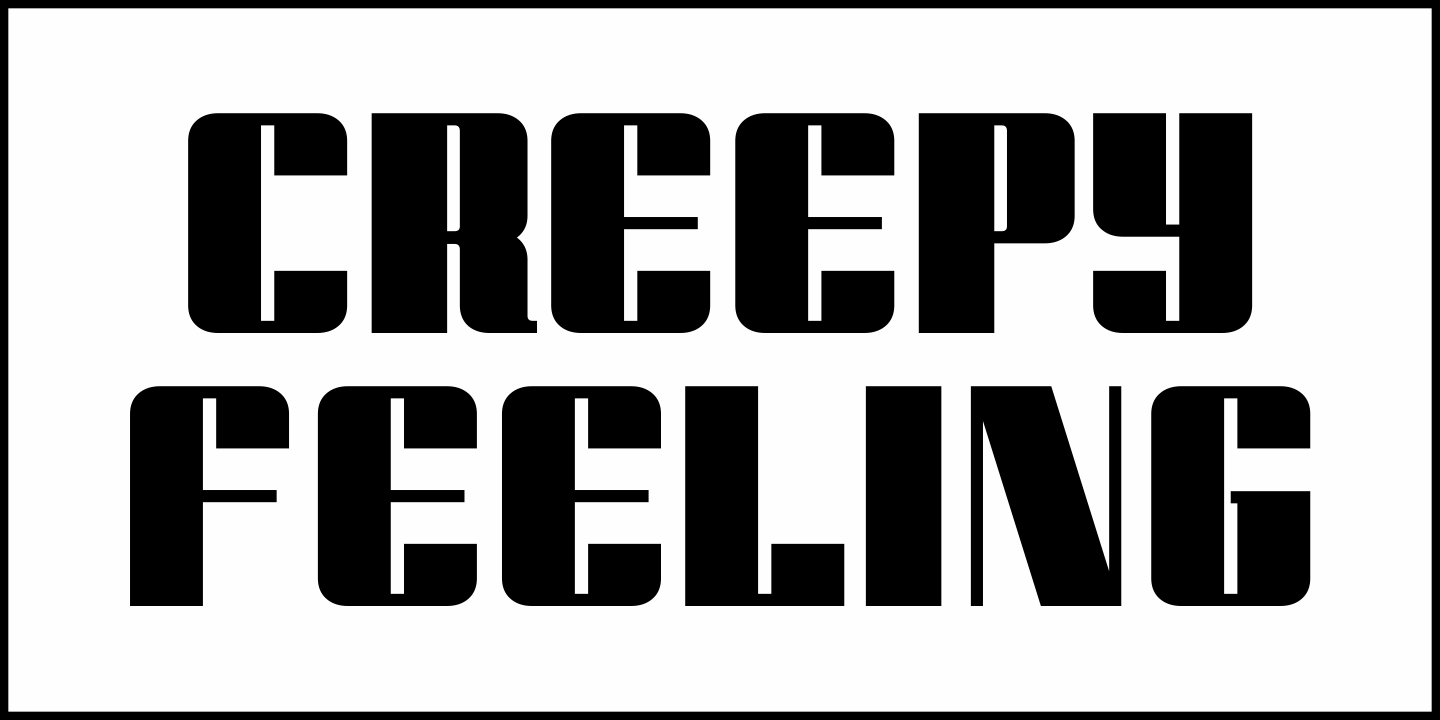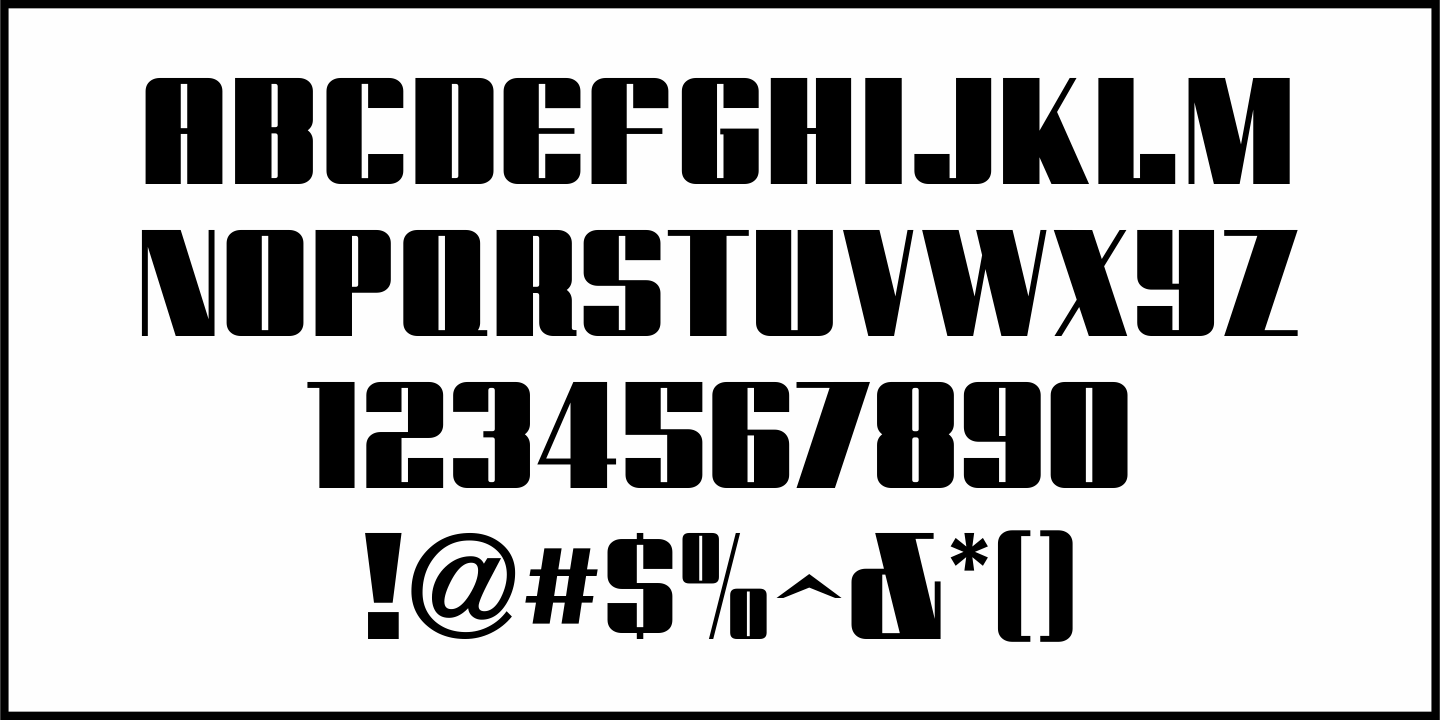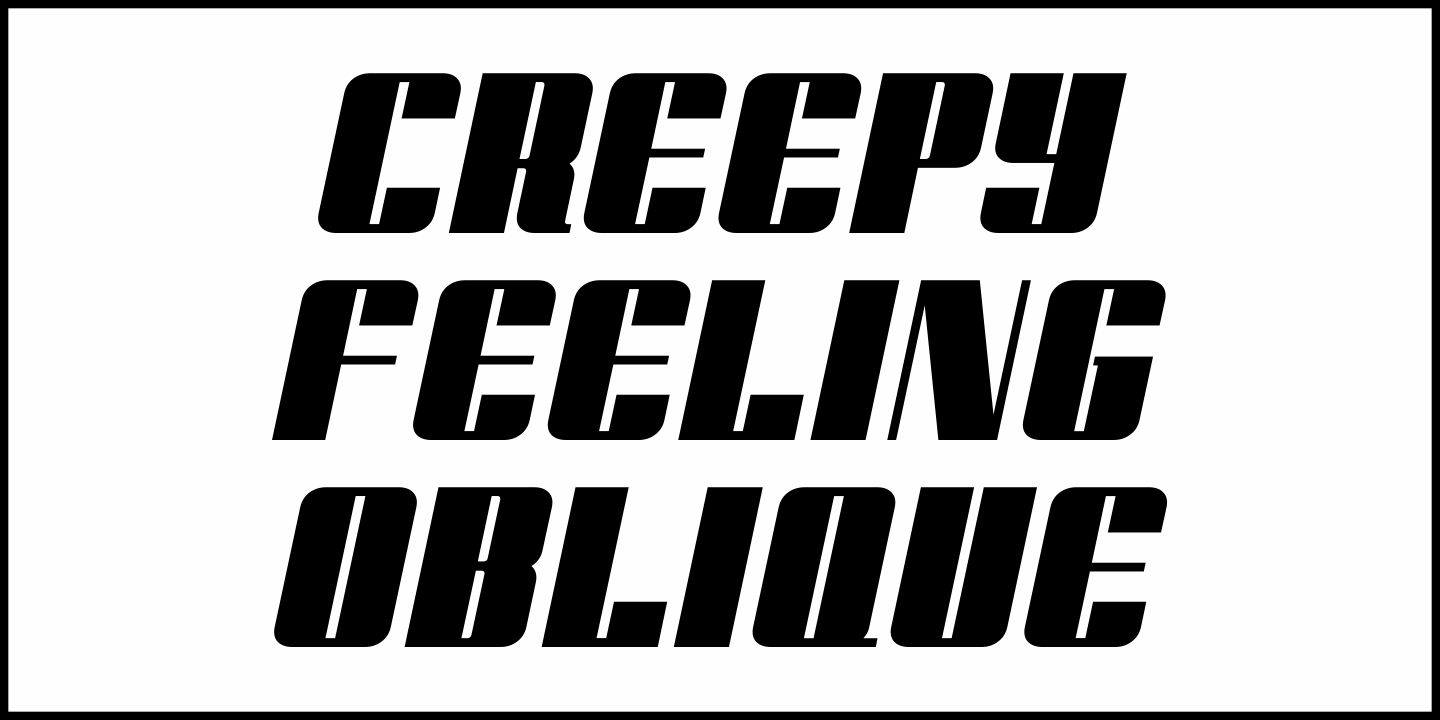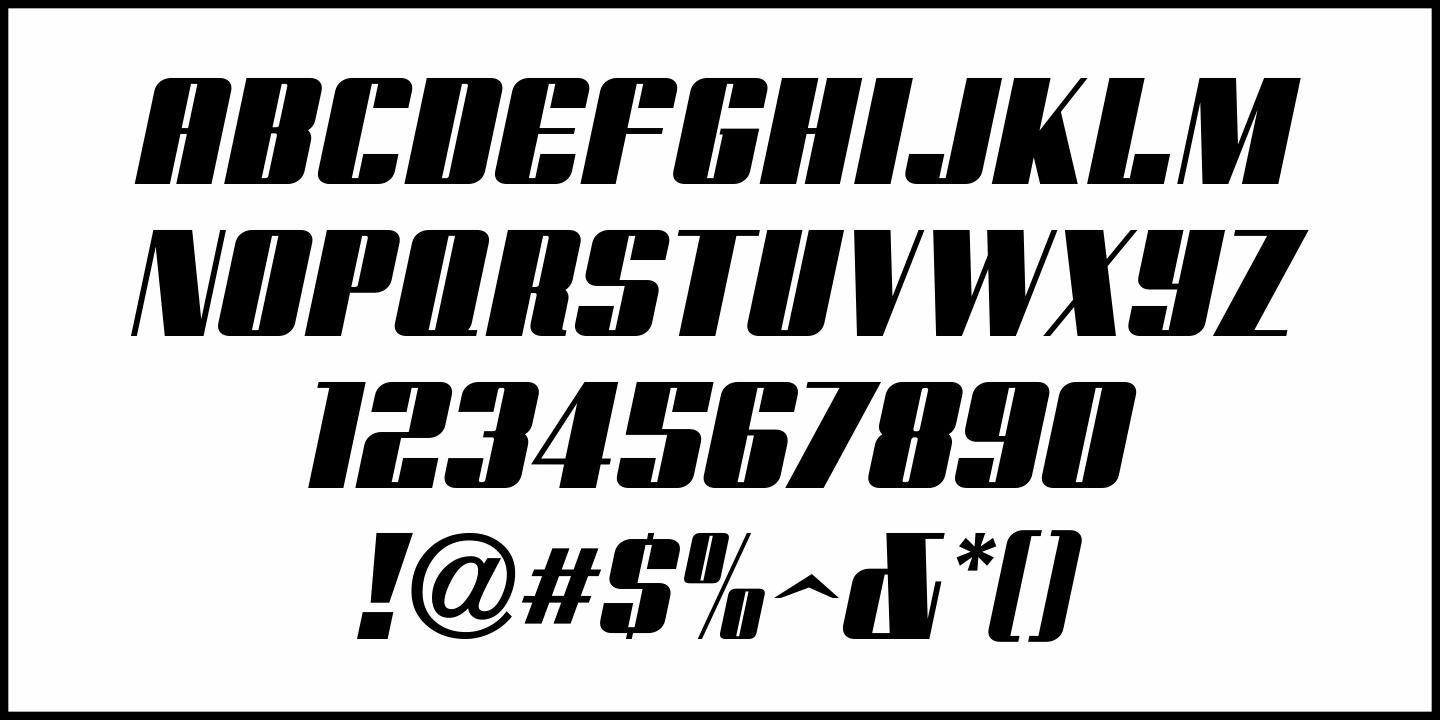
Creepy Feeling
A Swedish movie poster for the 1936 Boris Karloff film "The Walking Dead" featured ultra bold thick and thin Art Deco hand lettering. Some modifications were made so that the design would be better suited for a digital type revival.
Creepy Feeling JNL is now available in both regular and oblique versions.